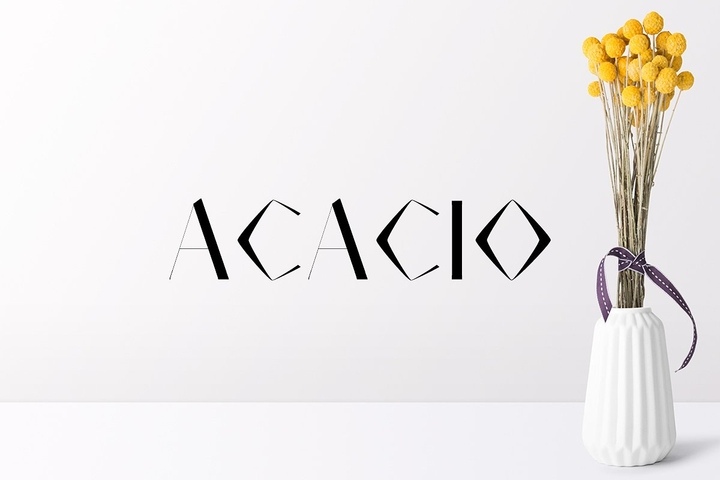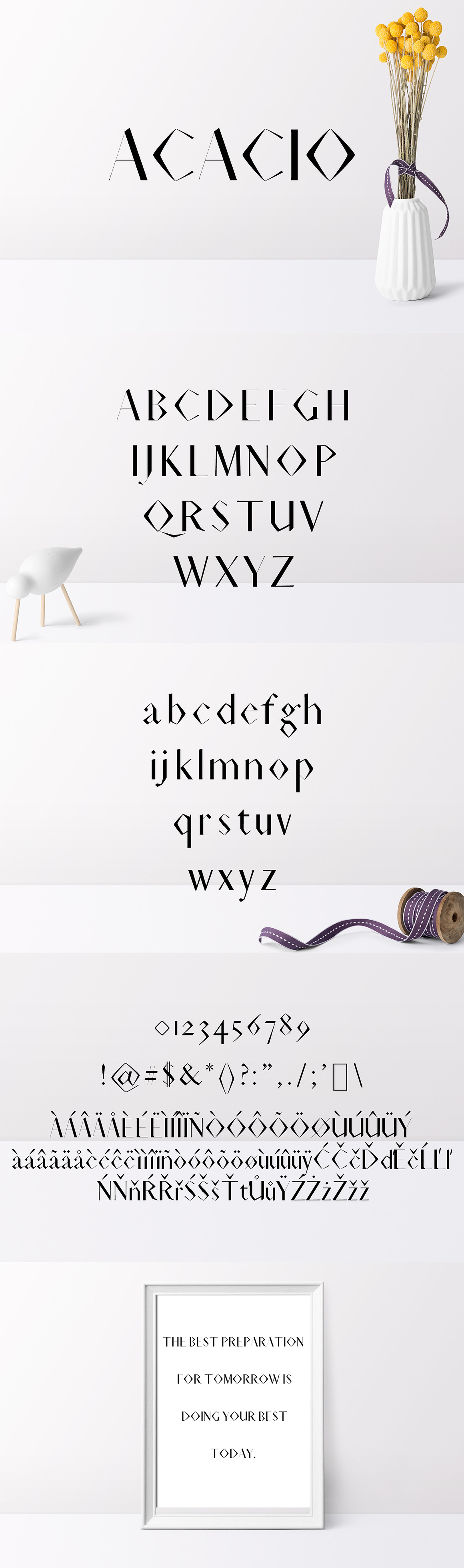
Acacio Serif 2 Font Family Pack
Acacio Serif 2 Font Family Pack is perfect for premium publishing, luxury magazines, upscale restaurant menus, sophisticated branding, art gallery catalogs, wine labels, high-end product descriptions, and elegant marketing materials.
Acacio Serif 2 Font Family Pack is exciting because it masterfully combines classical serif tradition with contemporary refinement, featuring distinctive character details and balanced proportions that create sophisticated visual appeal. Its elegant personality projects quality and exclusivity across all design applications.
Acacio Serif 2 Font Family Pack family includes regular and bold weights with corresponding italic styles, providing designers with four carefully harmonized font variations for creating refined and cohesive typographic solutions.
Design professionals consistently choose Acacio Serif 2 Font Family Pack for projects requiring distinguished visual character and refined aesthetic appeal. Its classical foundation provides timeless elegance while modern refinements ensure optimal performance across contemporary media platforms. The font's versatile nature adapts beautifully between intimate personal communications and broader commercial applications requiring sophisticated brand representation.
The Acacio Serif 2 Font Family Pack download includes comprehensive punctuation, decorative elements, and international character support for professional multilingual applications. This extensive coverage ensures seamless implementation across diverse markets and complex layout requirements. The font's consistent baseline alignment and careful kerning create polished presentations that reflect organizational attention to quality and detail.
Creative teams appreciate Acacio Serif 2 Font Family Pack's ability to communicate authenticity and craftsmanship in an increasingly competitive marketplace. Its refined personality helps brands establish emotional connections with discerning audiences seeking quality and exclusivity, making it an essential tool for organizations committed to superior visual communication and premium brand positioning.